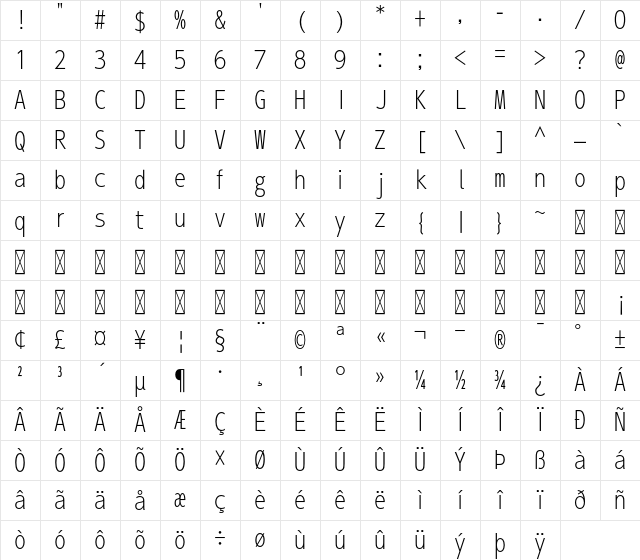
A-OTF UD Shin Go Con50 Pr6 EL
Style: EL
A-OTF UD Shin Go Con50 Pr6 Family
Complete A-OTF UD Shin Go Con50 Pr6 EL glyph index. Displaying only characters natively supported by A-OTF UD Shin Go Con50 Pr6 EL font.
Design Context for A-OTF UD Shin Go Con50 Pr6
A-OTF UD Shin Go Con50 Pr6 is a composed and adaptable typeface that performs quietly and consistently across a wide range of design contexts.